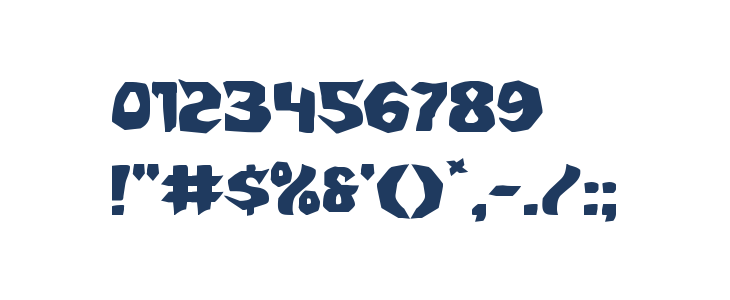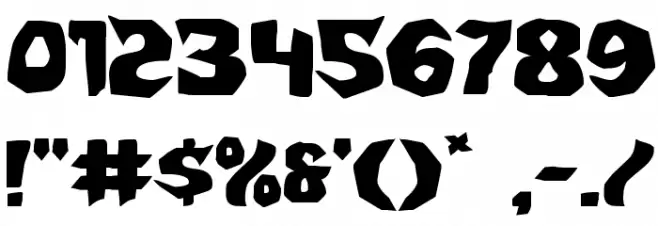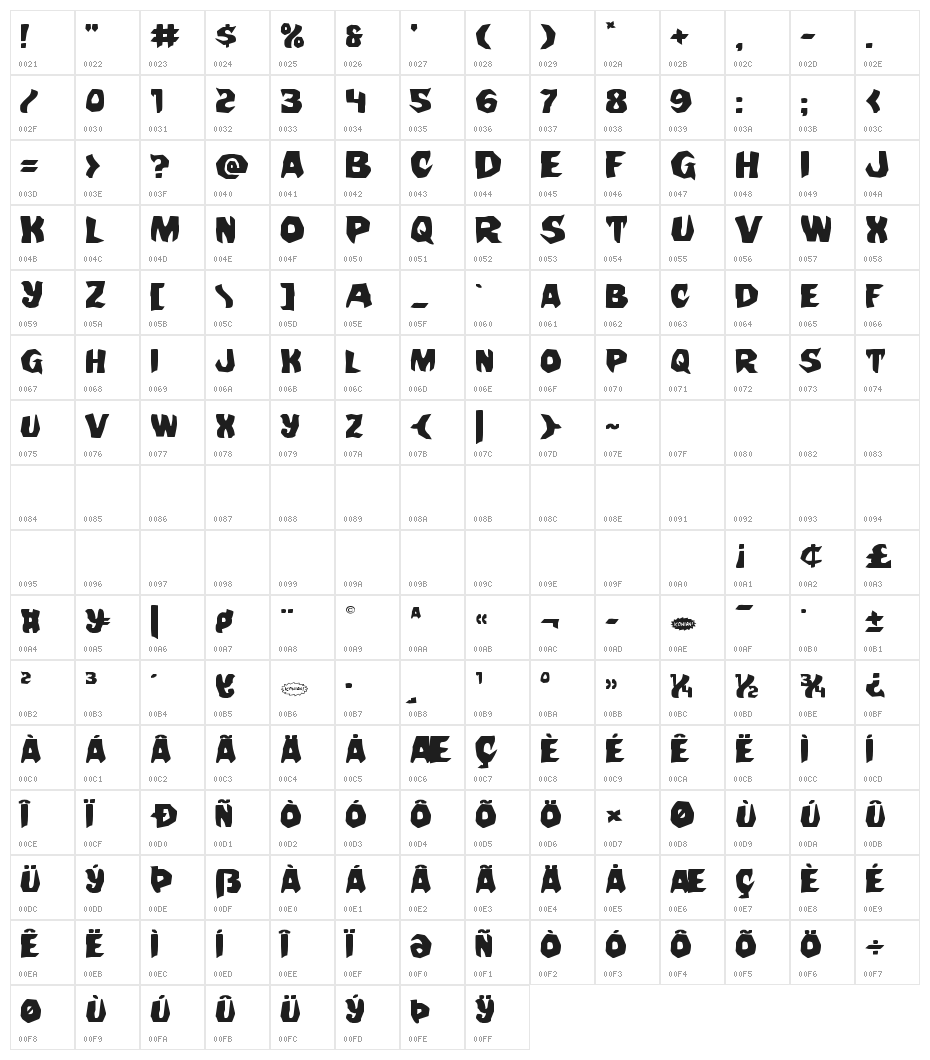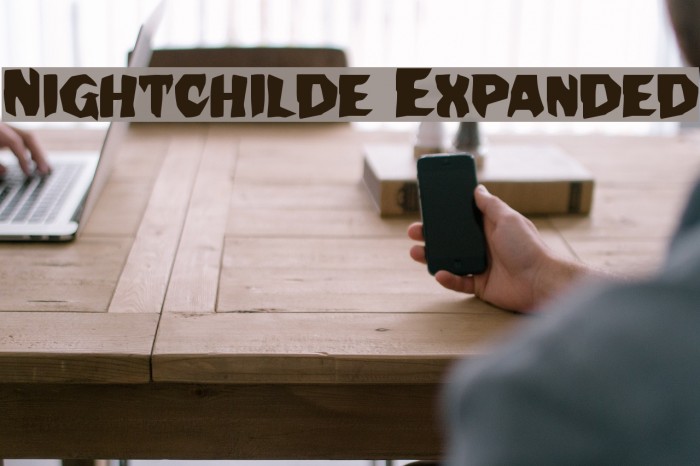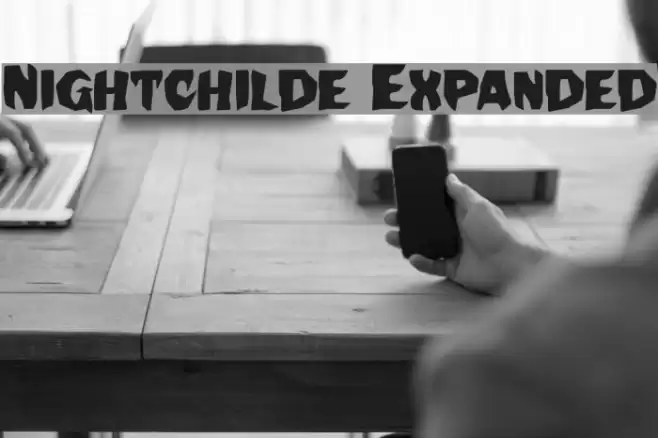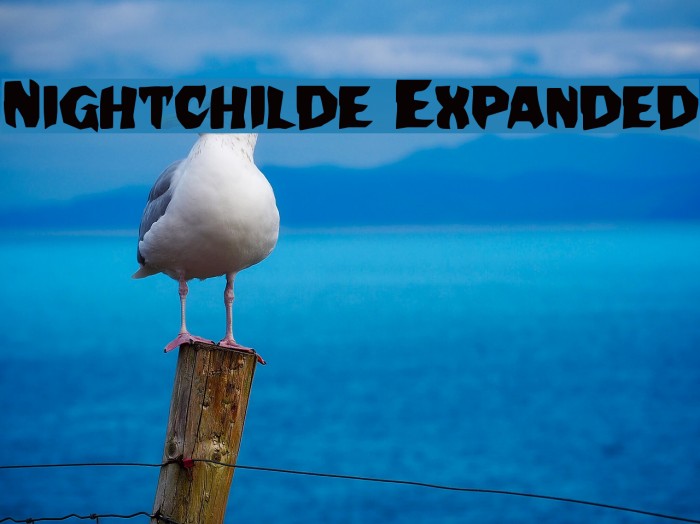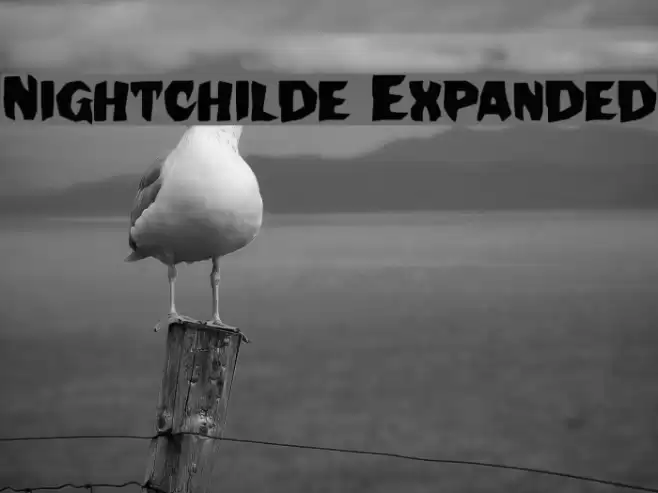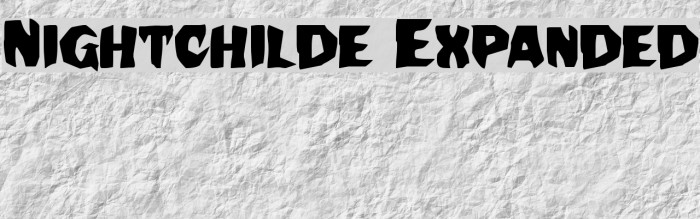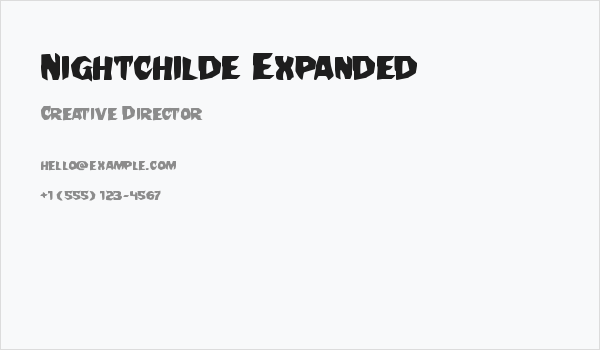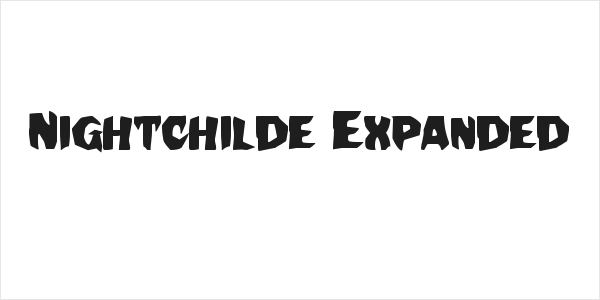
Nightchilde Expanded Font
Nightchilde Expanded Description
This font features a bold and jagged style, reminiscent of hand-carved or chiseled letters. The characters have an irregular and rugged appearance, with sharp angles and uneven edges that give it a dynamic and edgy feel. The uppercase letters are particularly striking, with a strong presence that commands attention. The numbers and special characters maintain the same bold and rough aesthetic, ensuring consistency across all glyphs. This font is ideal for projects that require a dramatic and impactful visual statement.
| Proposed Projects | Perfect for horror-themed designs, rock band logos, Halloween posters, or any project needing a bold, dramatic impact. |